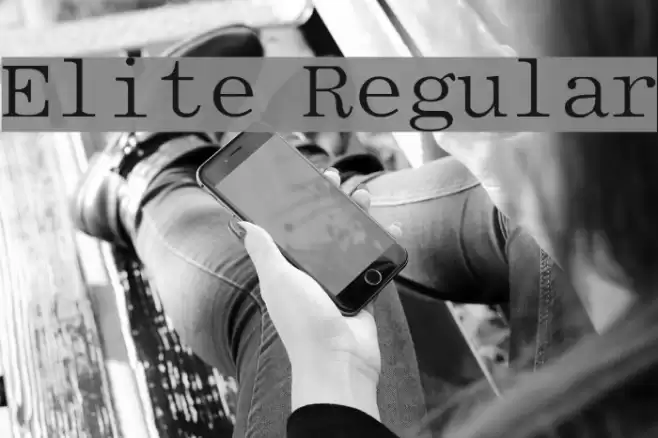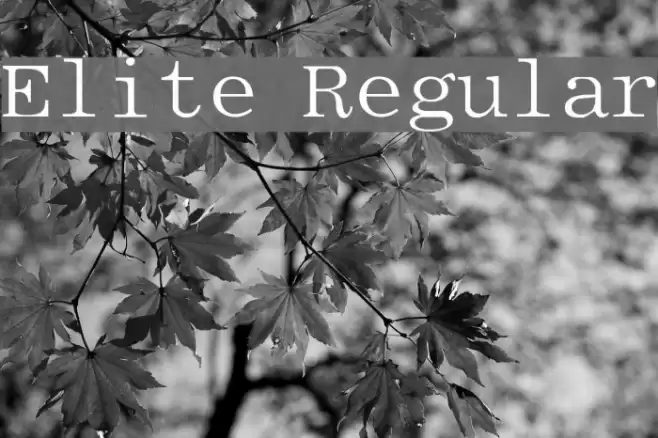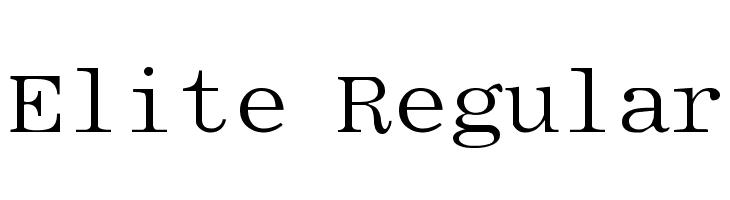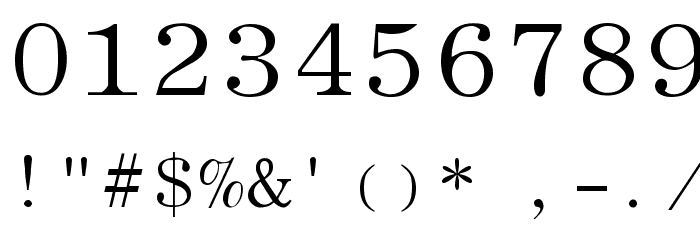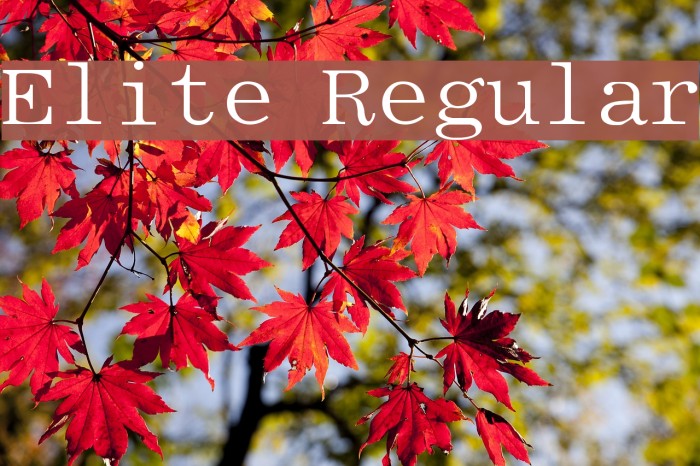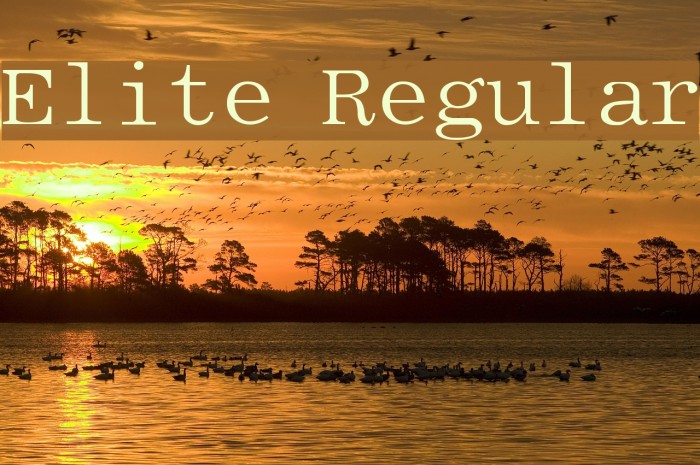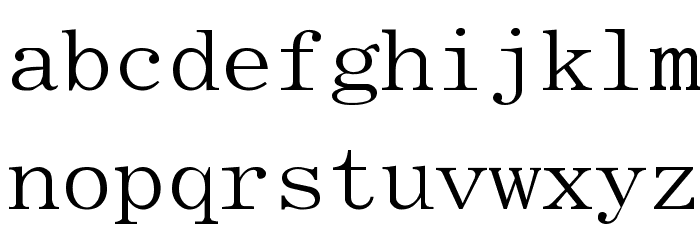
Elite Regular
This font features a classic serif style with distinct, sharp serifs that provide a traditional and formal appearance. The characters are well-proportioned, with a moderate contrast between thick and thin strokes, enhancing readability. The uppercase letters are bold and commanding, while the lowercase letters maintain a consistent and elegant flow. Numerals are clear and balanced, making them suitable for both text and numerical data. The special characters are designed to complement the overall style, ensuring uniformity across all glyphs.
A classic serif font with sharp serifs and moderate contrast, offering a traditional and formal look.
- Proposed Projects: Ideal for editorial design, book publishing, formal invitations, and corporate branding.
- Category: Serif
- Overall Style: Classic
- Use Case: Body text, Editorial design, Formal documents